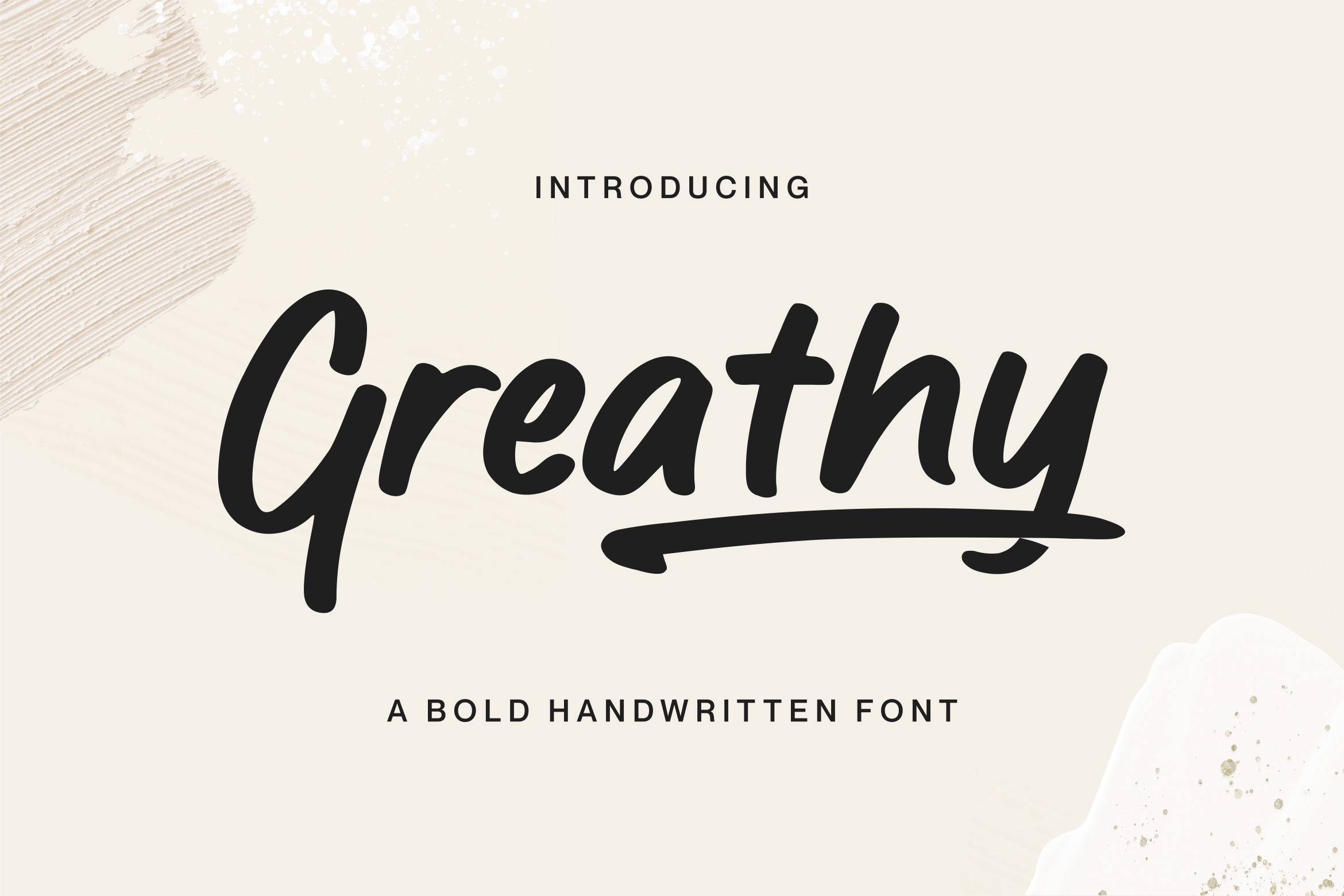
Greathy Font
Proudly Present, Greathy a Bold Handwritten Font.
Greathy is perfect for any titles, logo, product packaging, branding project, megazine, social media, wedding, or just used to express words above the background.
Greathy also come with Multi-Lingual Support.